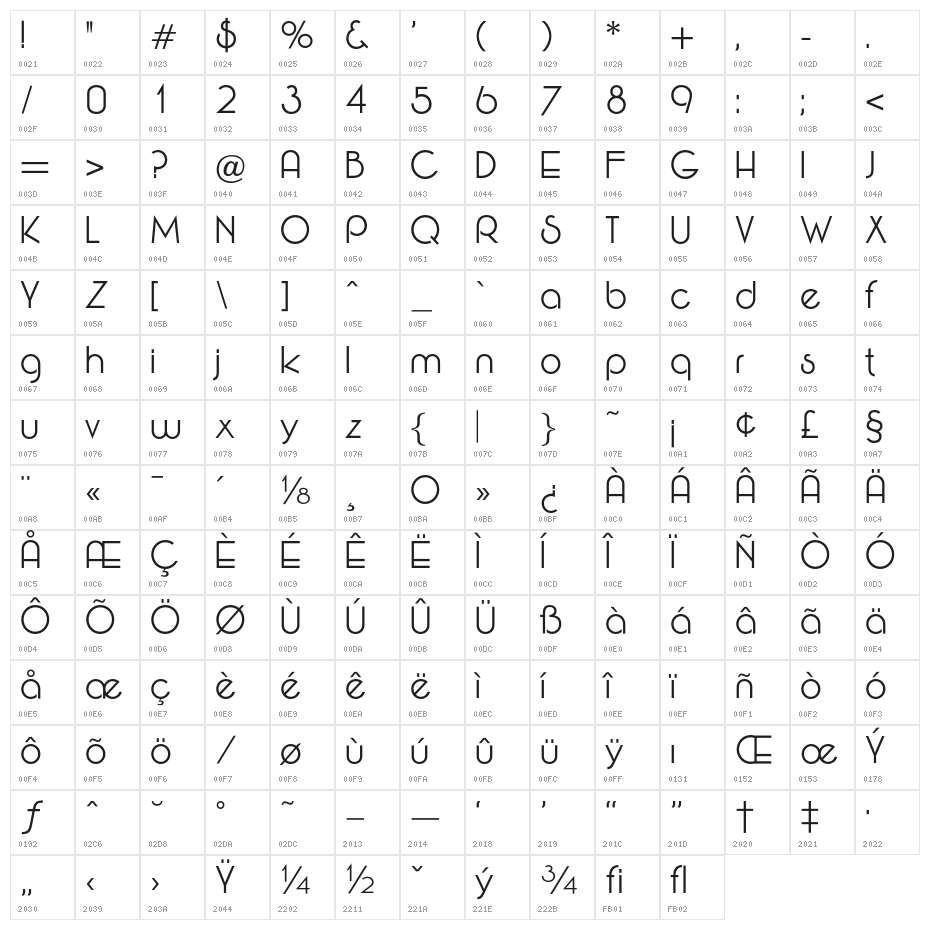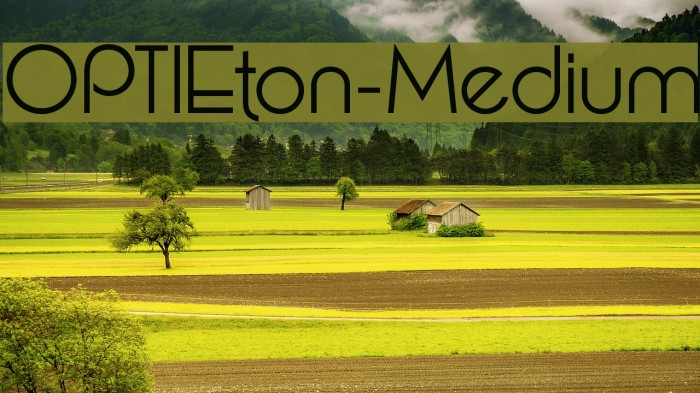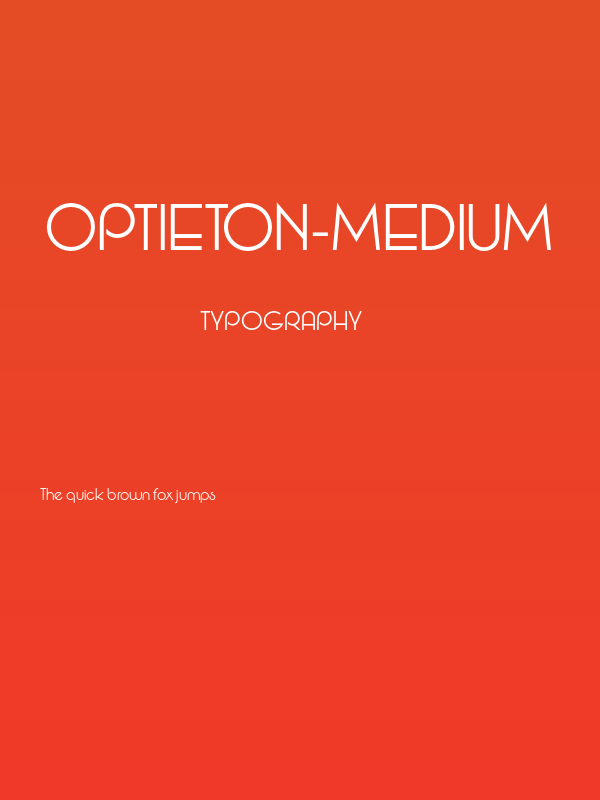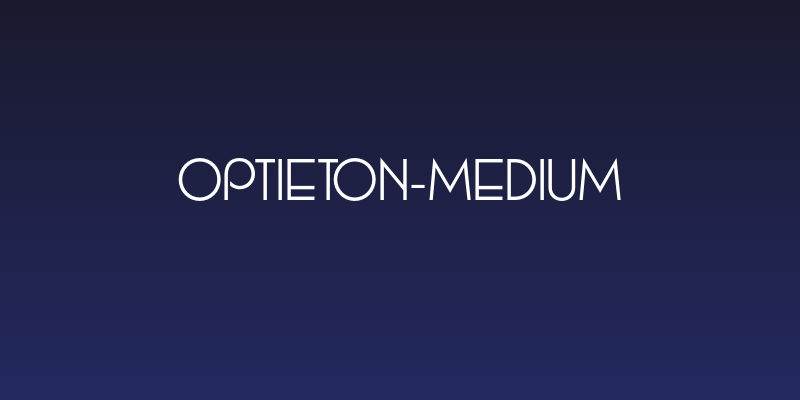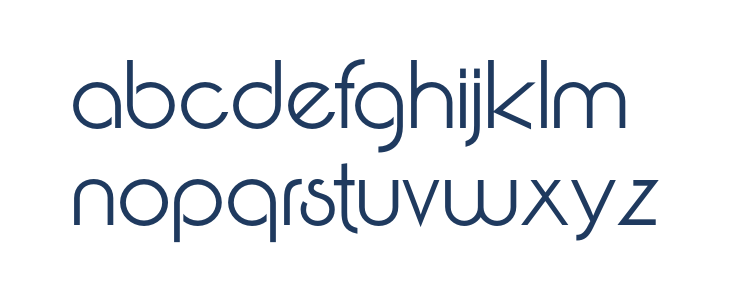
OPTIEton-Medium Font
OPTIEton-Medium Description
This font features a clean, geometric design with a modern aesthetic. The characters are crafted with a consistent stroke width, giving it a uniform appearance. The uppercase letters are bold and striking, while the lowercase letters maintain a smooth and rounded form. The numerals are distinct and easy to read, complementing the overall style. Special characters are designed with the same attention to detail, ensuring they blend seamlessly with the rest of the font. This typeface is versatile, suitable for a variety of design projects that require a contemporary and professional look.